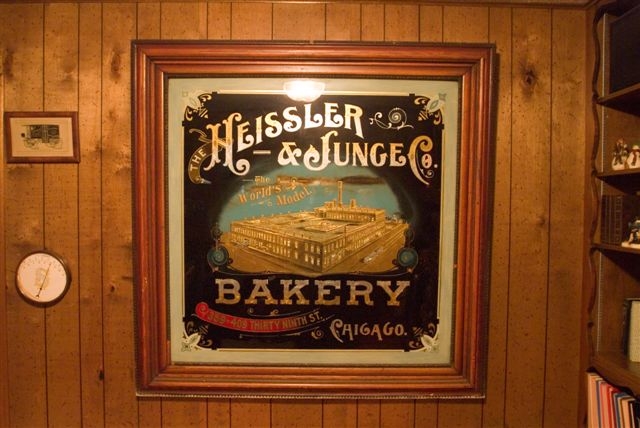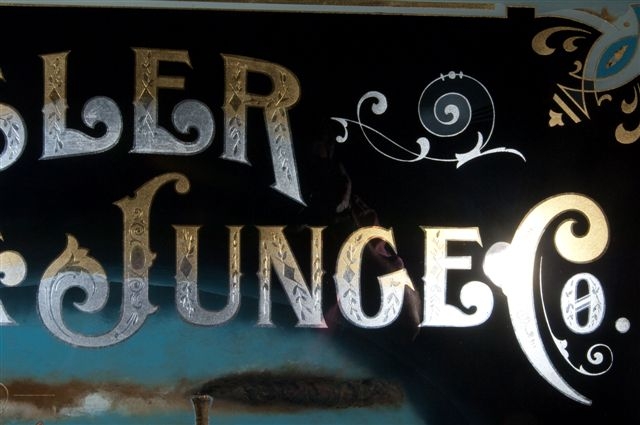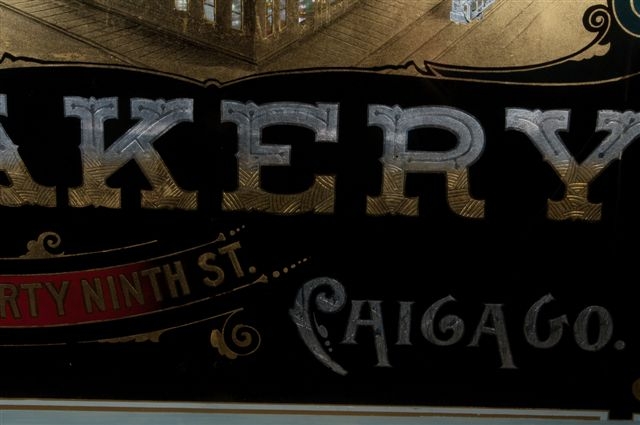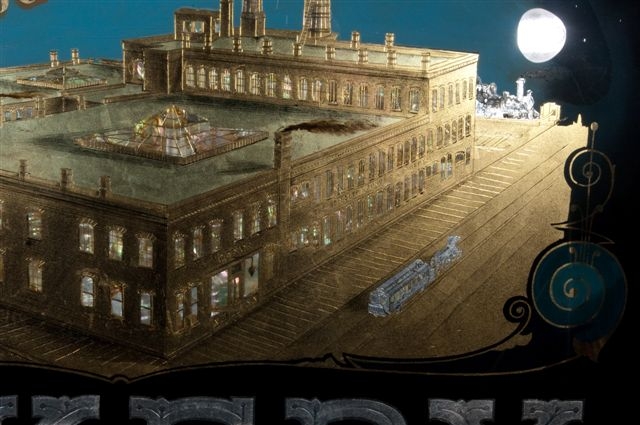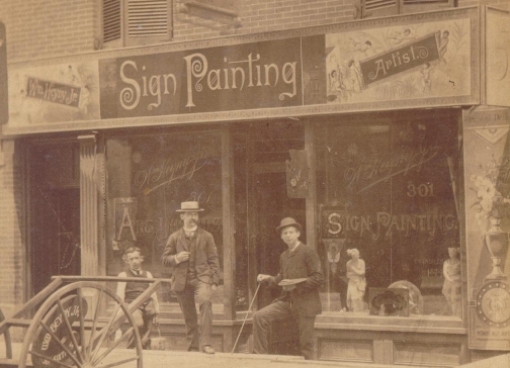
Glass Sign artists throughout history
I am working on trying to compile a list of Glass Sign Artist and was wondering if anyone could add to my list.
No information before 1848.
J. J. Edwards1848 English / New York
Mr. Hale 1848
Rawson & Evans 1896s
Steve Parrish 1909- 1987
Frank Atkinson
Hensley Glass Sign Co 1970s ??
Noel Weber ?
Rick Glawson 1947 - 2003
John Studden
Dave Smith
Re: Glass Sign artists throught history
Robert Freise, Chicago USA
David Trihilo not sure on spelling his surname? California
Brilliant Sign Co , London 1900 - 1970's England
Stuart Norton, Newcastle, England
James W itchel l , Glos, England
Rich Samsuel, Santa Cruz, California
Doug Bernhardt, Canada,
Jeff Lang, Pittsburgh, USA
Decorative Sandblasting Company ,Manchester England
The Decorative Sandblasting Company, London,Gray's Inn Rd England
Nero, London, England
Bill Hueg ,USA
Terry Sicobo, Seyschells
Re: Glass Sign artists throught history
I am hoping you might give me some insight into European history. There doesn't seam to be much available on line.Any contemporary Glass Sign Artists that feel they want to be included in this list are welcome.
J. J. Edwards1848 English / New York
Mr. Hale 1848
Rawson & Evans 1896s
Steve Parrish 1909- 1987
Frank Atkinson
Brilliant Sign Co , London 1900 - 1970's England
Hensley Glass Sign Co 1970s ??
Noel Weber ?
Rick Glawson 1947 - 2003
John Studden
Dave Smith
Robert Freise, Chicago USA
David Trihilo not sure on spelling his surname? California
James W itchel l , Glos, England
Doug Bernhardt, Canada,
Jeff Lang, Pittsburgh, USA
Decorative Sandblasting Company ,Manchester England
The Decorative Sandblasting Company, London,Gray's Inn Rd England
Nero, London, England
Bill Hueg ,USA Glass Signs??
Terry Sicobo, Seyschells
Robert Freise, Chicago USA
Stuart Norton, Newcastle, England
James W itchel l , Glos, England
Rich Samsuel, Santa Cruz, California Glass Signs??
Doug Bernhardt, Canada,
Jeff Lang, Pittsburgh, USA
Re: Glass Sign artists throught history
Goddard and Gibbs were masters at Elaborate mirrors not sure on dates but around 1900,i think they collapsed the business a year ago. Another incredible manufacturer was Cakebread Robey 1890.London. Another player was Baxendales Embossed Glass, Manchester and Edinburgh . Also a main glass company just up the rd from me Mark Bowden of Bristol.
Bowdens Brilliant Cut Ornamental Window Glass. 1857. First man to invent the overhead counter balance for sheet glass while brilliant cutting.
Walter Gibbs and sons, London 1866.Painter Writer and Embosser on glass.. and also introduced amber staining to cut glass and French embossing. I think this was eventually to become Goddard and Gibbs in around 1890 but not sure...James Carter Sign Advertising Mirrors 1888. . Jones and Firmin, London 1890.
Re: Glass Sign artists throughout history